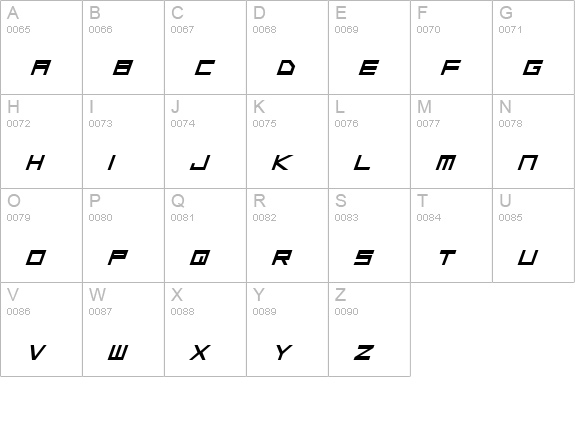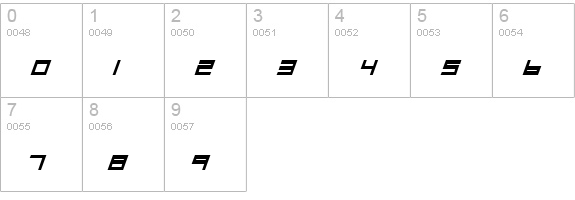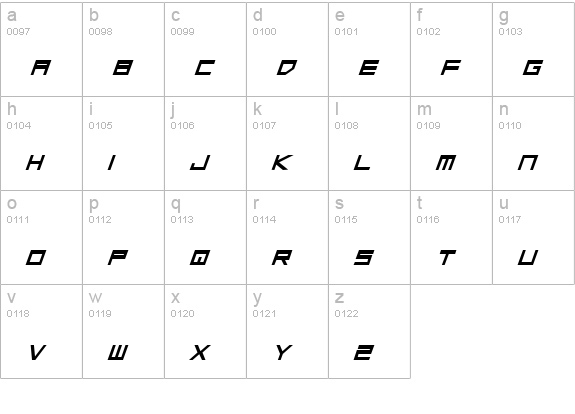
Low Gun Screen Bold Italic is a strong, high-contrast, italic variant in the Low typeface family \xE2\x80\x94 well suited to headlines, attention-grabbing titles, and strong calls-to-action.
Low Gun Screen Bold Italic font is a bold and dynamic typeface that exudes a sense of strength and confidence. Its sleek and modern design makes it perfect for a wide range of creative projects, from branding to advertising to digital media. This versatile font features a unique blend of sharp angles and smooth curves, giving it a distinct and striking appearance. The bold italic styling adds an extra touch of flair and sophistication, making it stand out from the crowd. Designed with attention to detail and precision, Low Gun Screen Bold Italic font is sure to make a statement and leave a lasting impression. Whether you're designing a poster, logo, website, or any other project, this font will help you achieve a professional and polished look. And the best part? Low Gun Screen Bold Italic font is available for free download at FontsMarket.com. So go ahead and elevate your designs with this eye-catching and stylish font today!